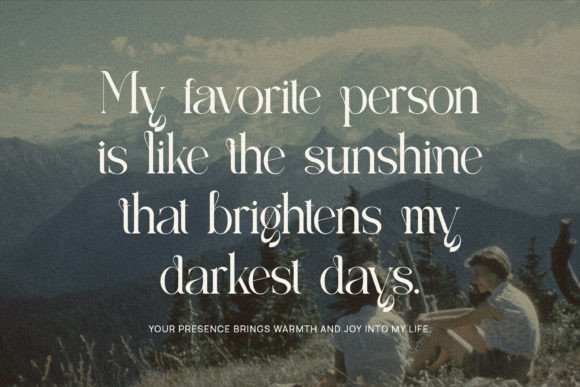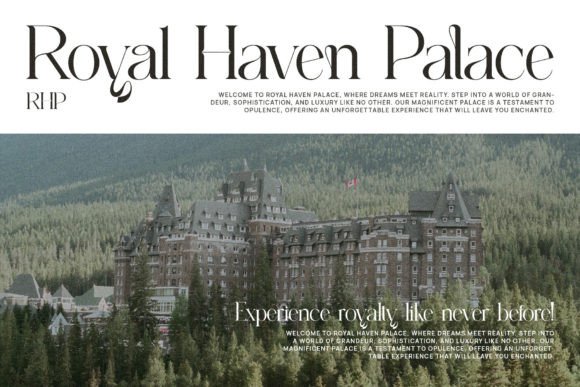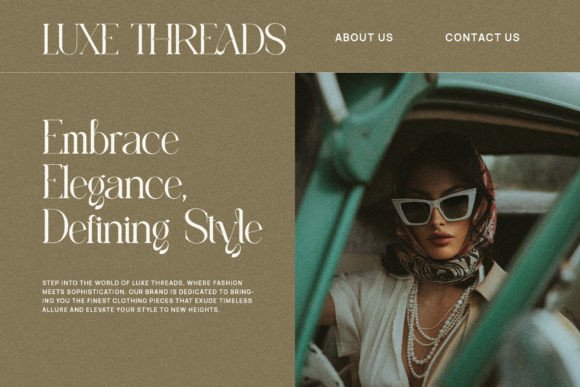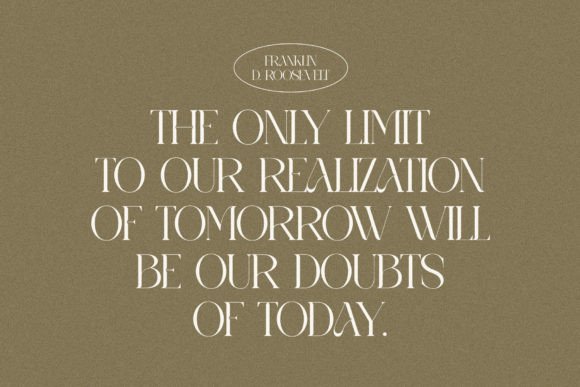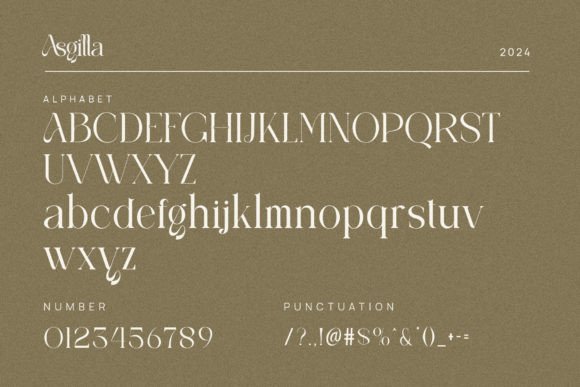
Introducing Asgilla Font: The Epitome of Elegance and Modernity
In the realm of typography, few fonts manage to strike a balance between elegance and modernity. Asgilla Font is one such exceptional typeface that seamlessly combines the classic sophistication of serif fonts with a contemporary twist. This versatile font is designed to cater to a wide array of design needs, making it an indispensable asset for designers and crafters alike.
Unparalleled Versatility
Asgilla Font boasts an elegant serif design that lends itself beautifully to various applications. Whether you’re working on branding projects, crafting logos, designing wedding materials, creating social media posts, or developing advertisements, this font is more than up to the task. Its classy and modern style ensures that your designs exude a sense of refinement and sophistication, making it perfect for:
- Branding projects: Establish your brand’s identity with a font that communicates elegance and professionalism.
- Logos: Create memorable logos that stand out with the unique blend of classic and modern elements.
- Wedding designs: Add a touch of luxury and romance to your wedding materials, from invitations to decorations.
- Social media posts: Elevate your online presence with stylish and readable text.
- Advertisements: Capture your audience’s attention with a font that exudes quality and sophistication.
- Product packaging: Enhance your product’s visual appeal with a font that conveys elegance and modernity.
- Product designs: Incorporate Asgilla Font into your product designs for a cohesive and stylish look.
- Labels: Create eye-catching labels that reflect your brand’s high standards.
- Photography: Use Asgilla Font for watermarks or photo titles to add a professional touch.
- Invitations: Design stunning invitations for any occasion with a font that spells class.
- Stationery: Elevate your stationery designs with a sophisticated and modern typeface.
Asgilla Font comes with PUA (Private Use Area) encoding, a feature that significantly enhances its usability. PUA encoding allows designers to access a wide range of glyphs and ligatures easily, providing more creative freedom and flexibility. This means you can effortlessly incorporate the font’s extensive character set into your designs, experimenting with various typographic elements to achieve the desired aesthetic.
High Level of Readability
One of the standout features of Asgilla Font is its high level of readability. In today’s fast-paced digital world, where information is consumed rapidly, the importance of clear and legible text cannot be overstated. Asgilla Font ensures that your message is conveyed effectively, whether it’s in a blog post, a social media update, or a product description. This clarity is crucial for engaging your audience and ensuring that your content is accessible to a wide range of readers.
Asgilla Font is a treasure trove for designers and crafters looking for a typeface that can elevate their projects. Its unique blend of elegance and modernity makes it an excellent choice for those who aim to create visually stunning and professional-looking designs. With Asgilla Font, you can:
- Streamline your design process with a versatile font that meets multiple needs.
- Enhance your projects with a sophisticated and contemporary look.
- Experiment with various design elements, thanks to the font’s extensive character set.
Asgilla Font stands out as a premier choice for anyone seeking a typeface that embodies both elegance and modernity. Its versatility, combined with PUA encoding and a high level of readability, makes it an invaluable resource for designers and crafters. Whether you’re working on a branding project, a wedding design, or a product packaging project, Asgilla Font is sure to exceed your expectations. Incorporate this exceptional font into your design arsenal and discover the difference it can make in your creative endeavors.